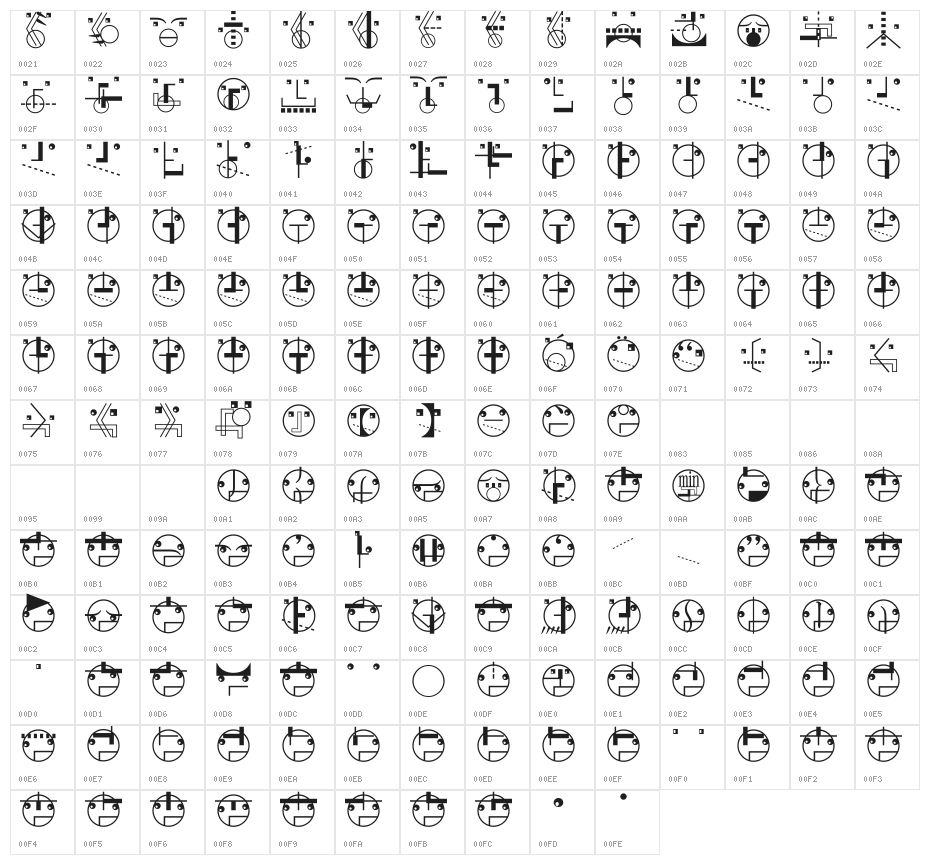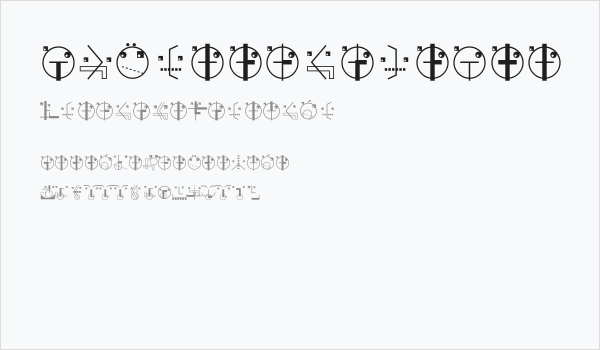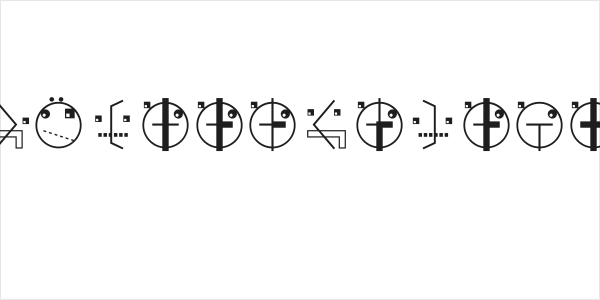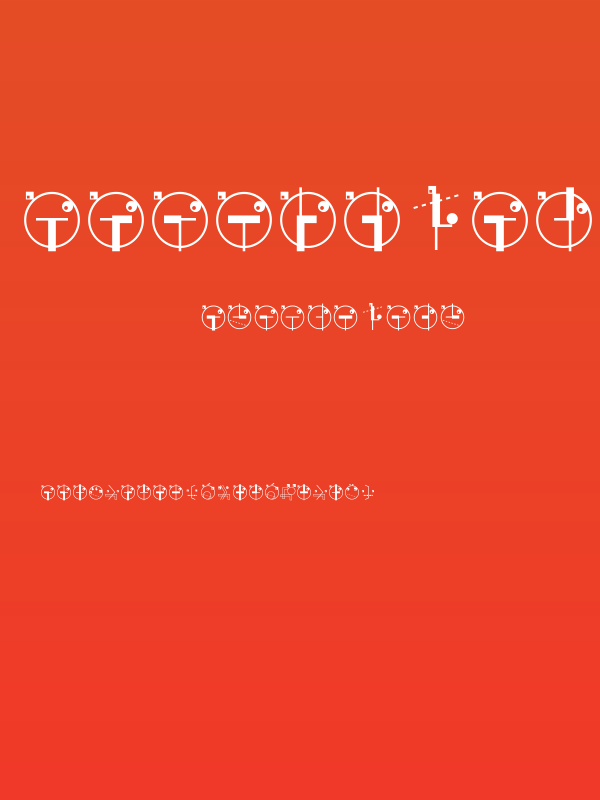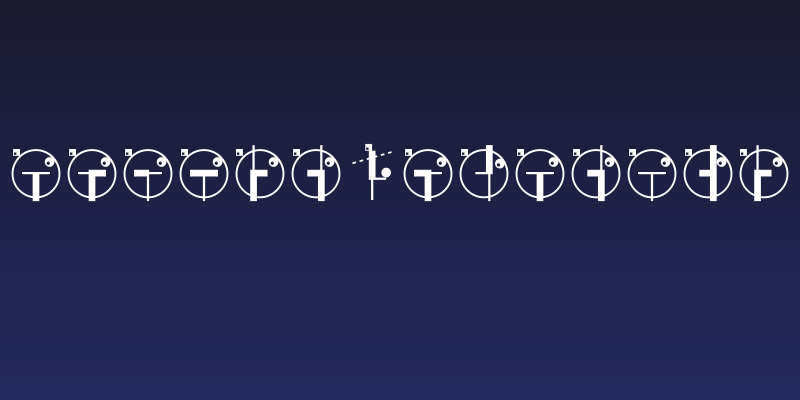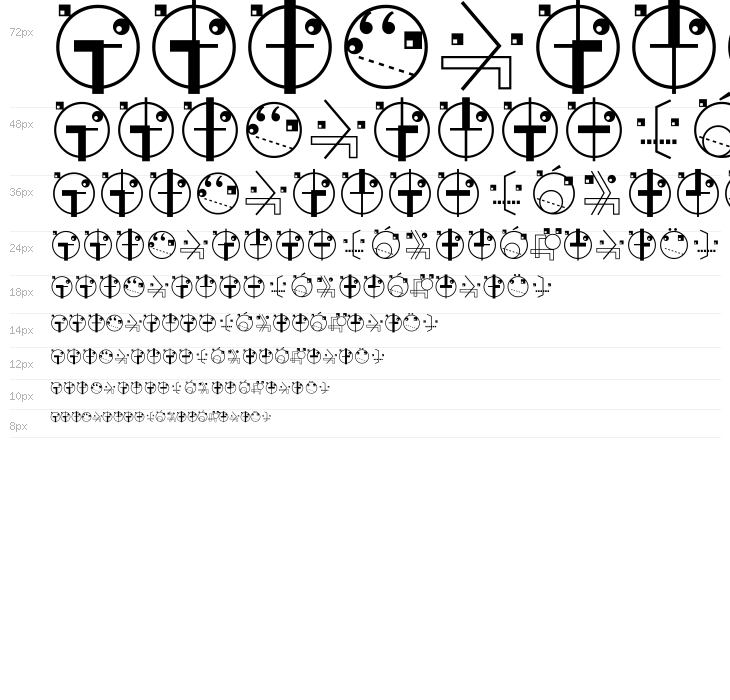
SuprematismOne Font
SuprematismOne Description
This font is a highly abstract and geometric design, drawing inspiration from the Suprematism art movement. It features a series of intricate shapes and lines that form each character, creating a unique and avant-garde appearance. The letters are composed of circles, squares, and lines, often intersecting or overlapping, which gives the font a dynamic and complex look. The use of bold, black strokes contrasts with the white space, enhancing the visual impact. This font is not intended for readability but rather for artistic expression and visual intrigue. It challenges traditional typography norms by transforming letters into art pieces.
| Overall Style | Modern, Artistic |
| Use Case | Art installations, Posters, Experimental design |
| Proposed Projects | Ideal for modern art projects, avant-garde posters, experimental design work, and any creative endeavor that seeks to push the boundaries of traditional typography. |